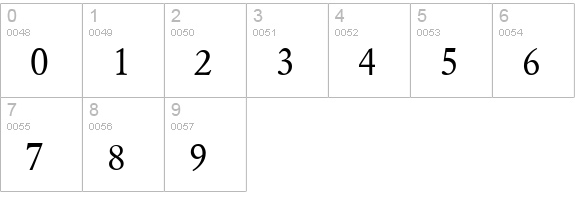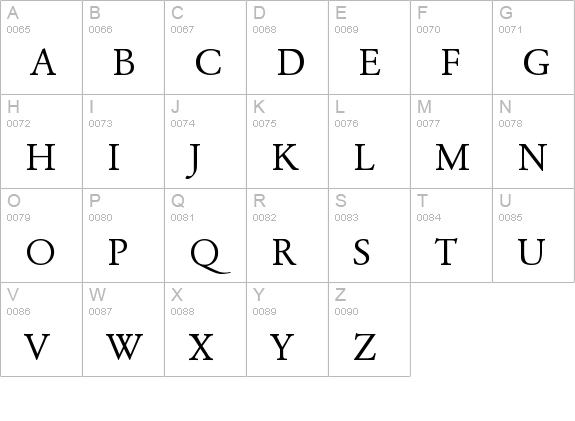
Yearlind-Normal Font Details
Yearlind-Normal is the standard, neutral variant in the Yearlind typeface family \xE2\x80\x94 well suited to general body text, paragraphs, and standard typographic work.
Yearlind-Normal is a modern and versatile font that exudes elegance and sophistication. With its clean lines and timeless appeal, this font is perfect for a wide range of design projects, from branding to editorial work. Its sleek and stylish appearance makes it a popular choice among designers looking to add a touch of class to their creations. What sets Yearlind-Normal apart is that it is available for free download at FontsMarket.com. This means that you can easily access this high-quality font without having to worry about any licensing fees. Whether you are a professional designer or a hobbyist looking to elevate your projects, Yearlind-Normal is a fantastic choice that won't break the bank. Download Yearlind-Normal today from FontsMarket.com and start incorporating this stunning font into your designs. With its seamless versatility and timeless appeal, Yearlind-Normal is sure to become a valuable addition to your font library.